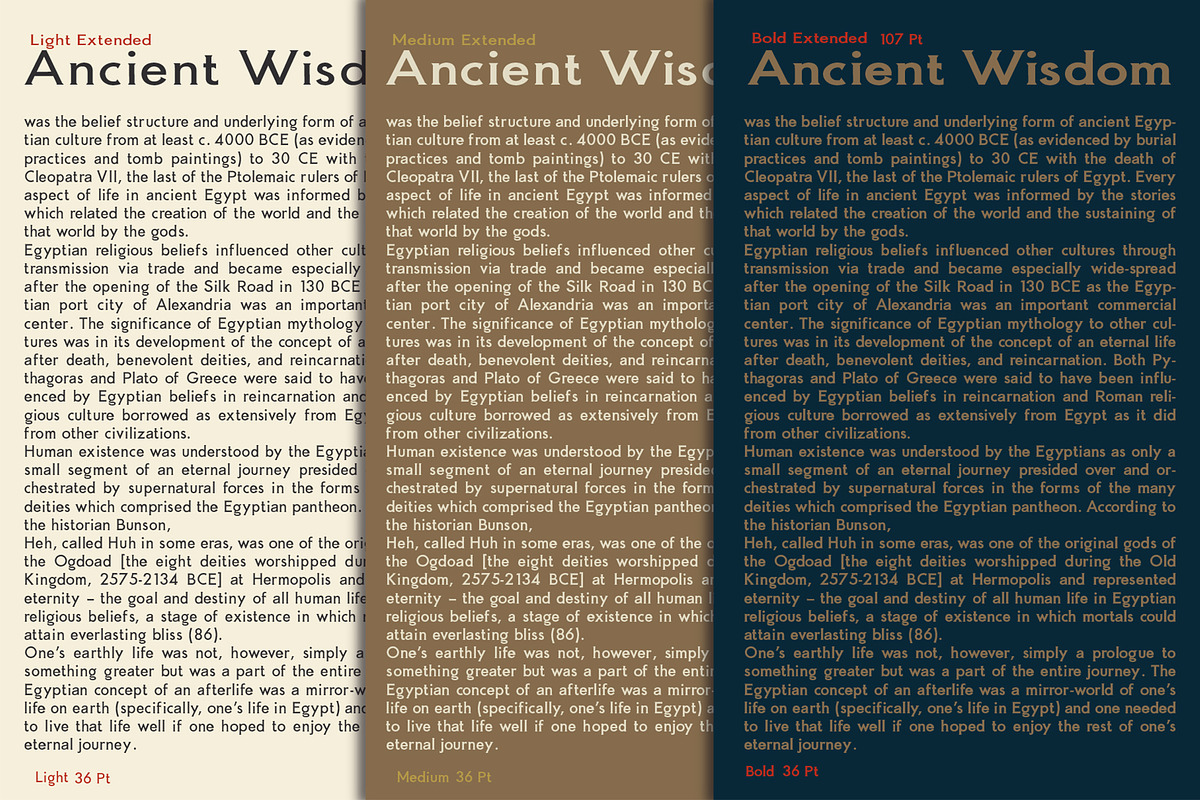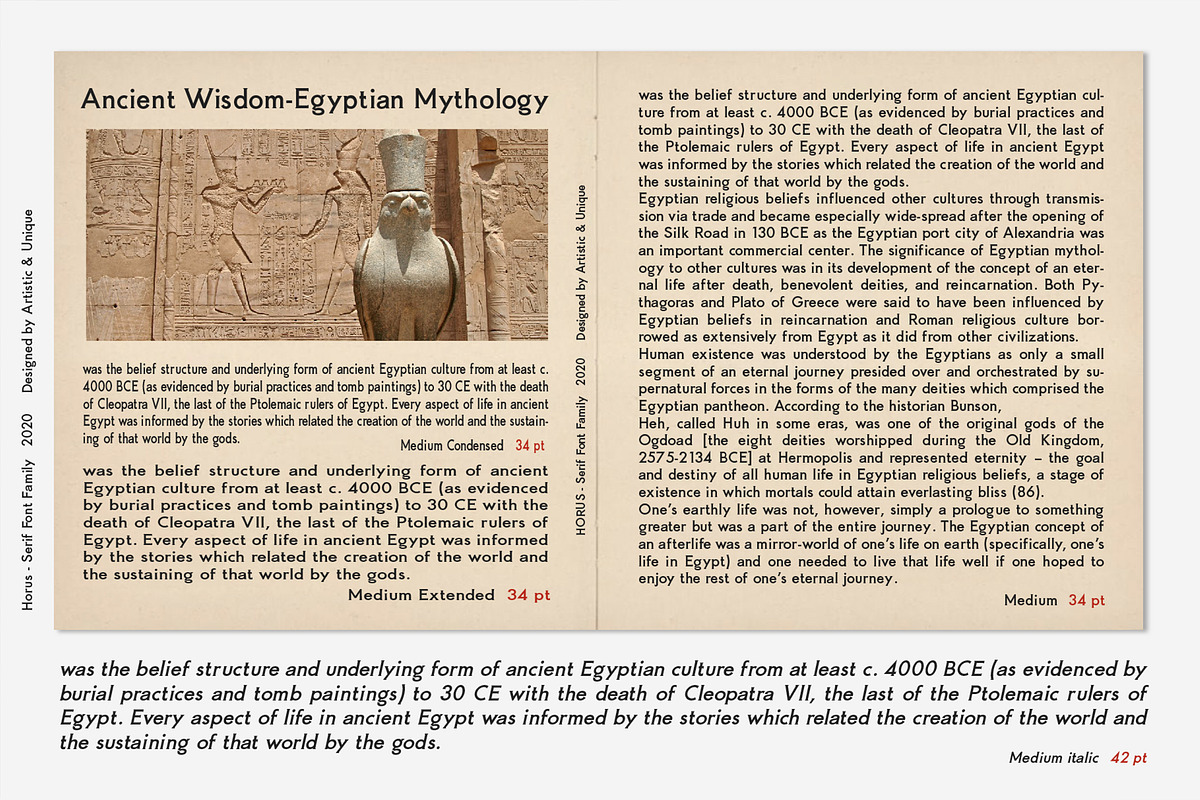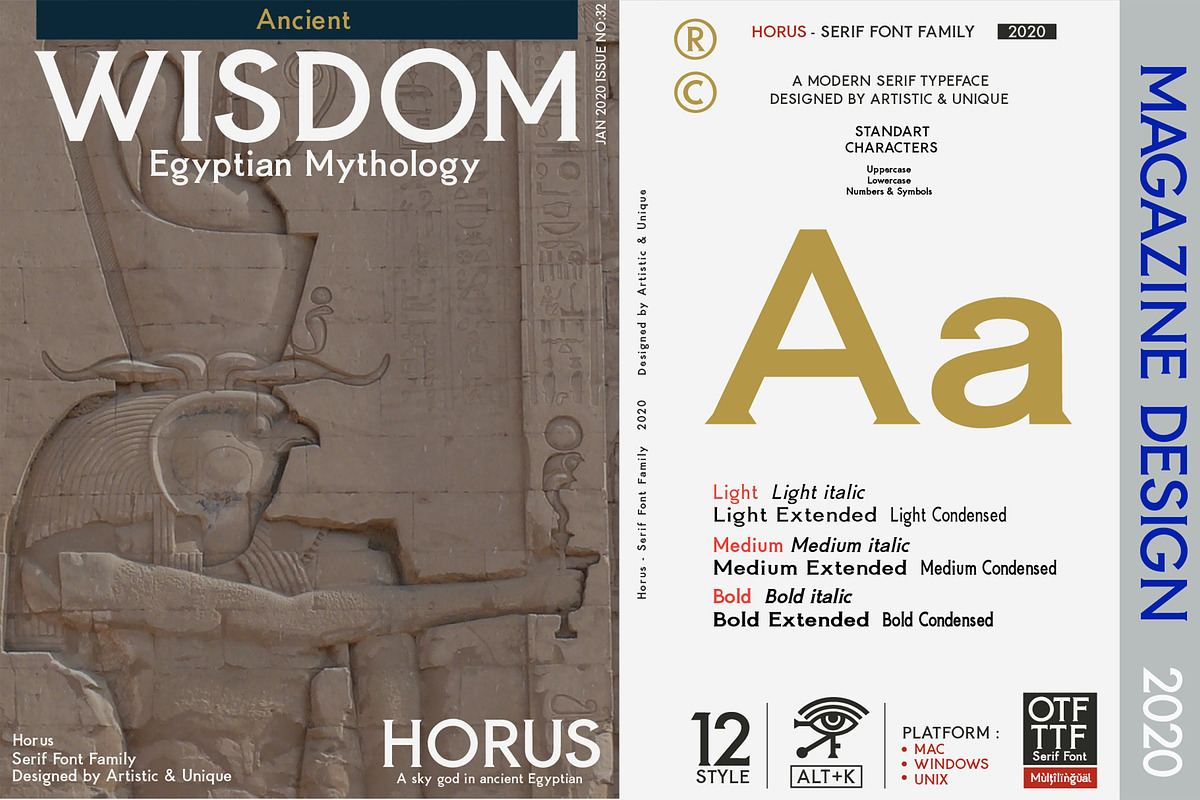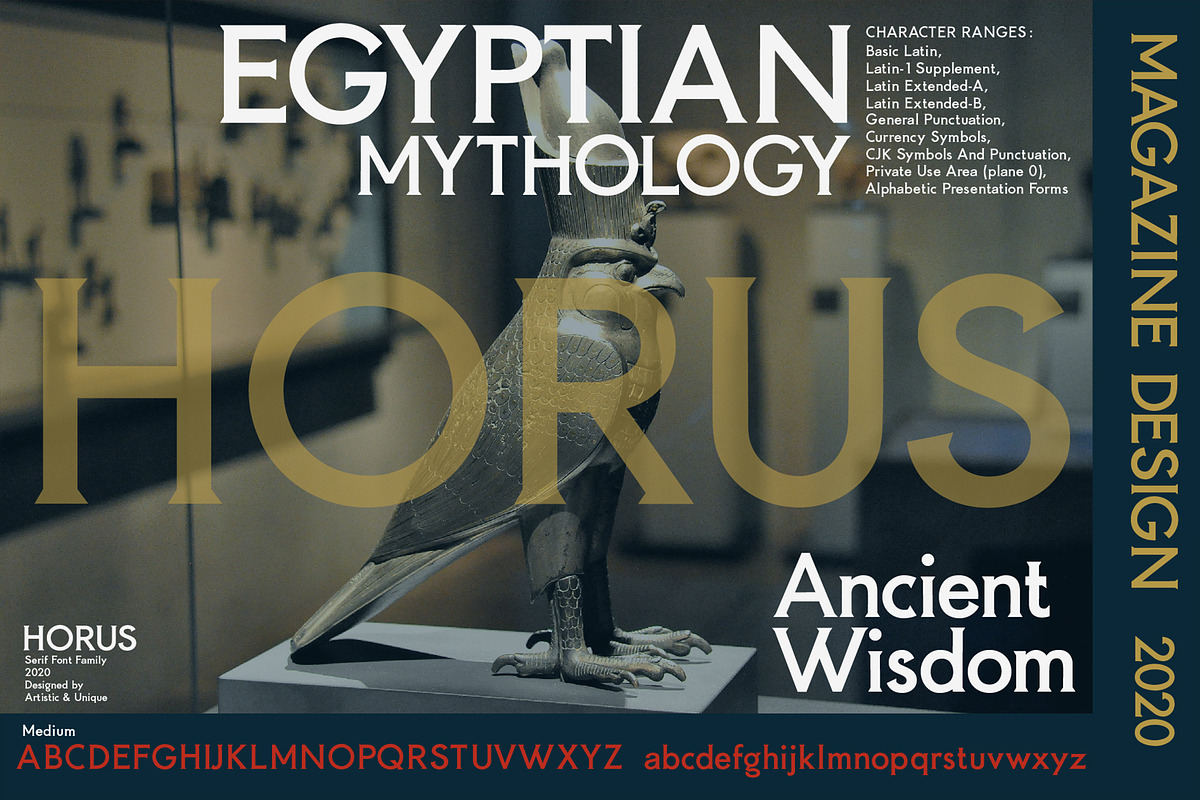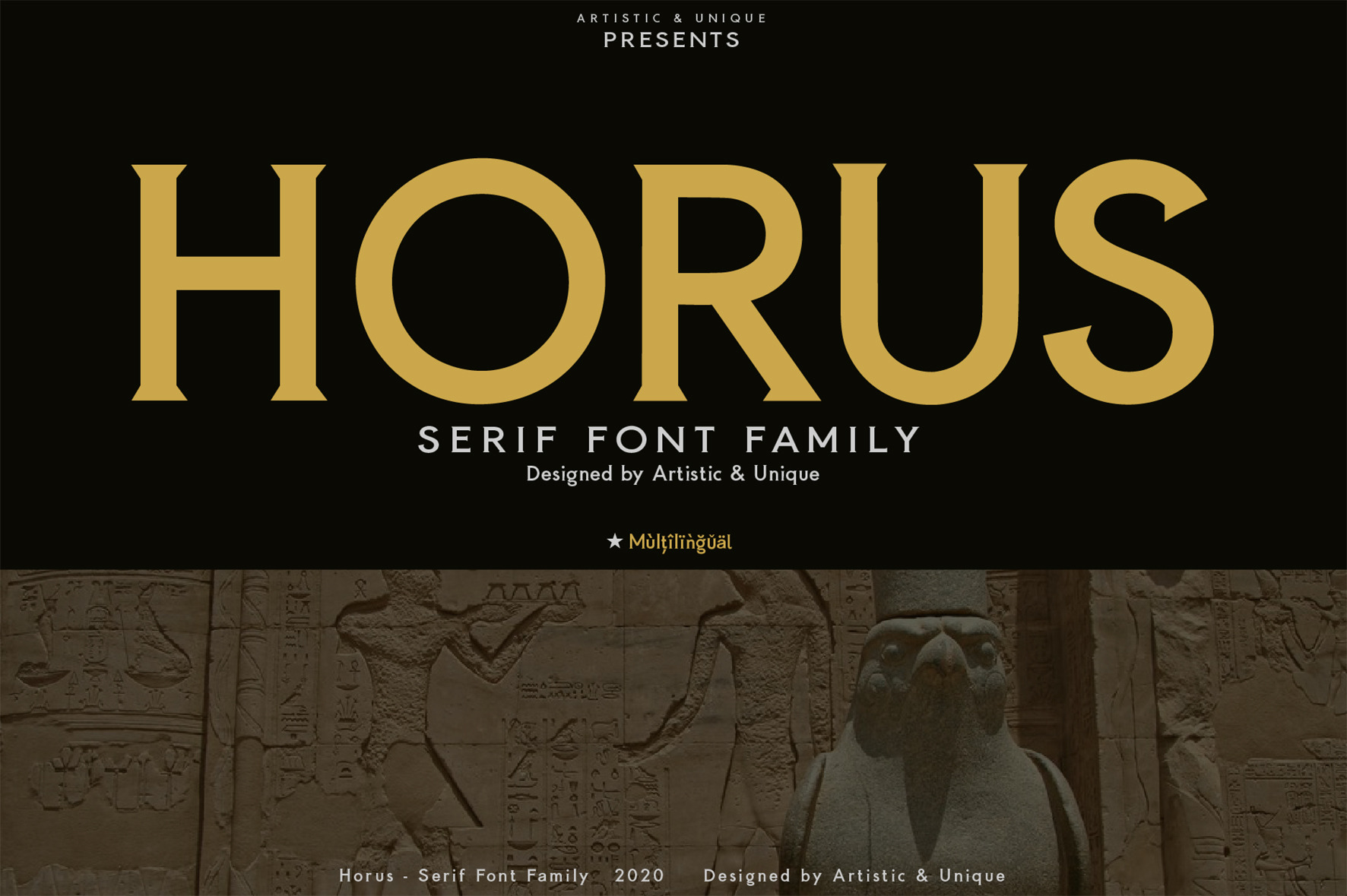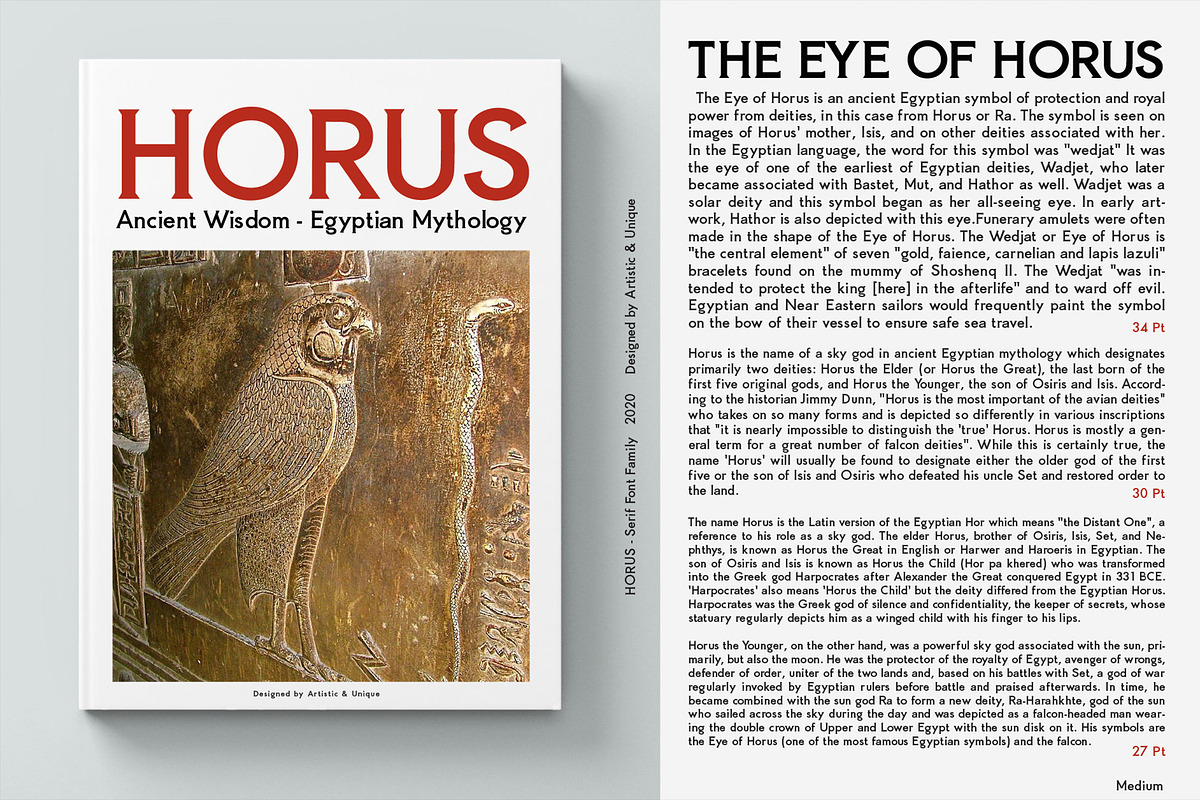
Horus - Serif Font Family
Horus - Serif Font Family - Multilingual - 12 Style (2020)
While Horus Font Family is inspired by Ancient Egypt and ancient stone carving inscriptions, the fact that this style was designed with today's modern serif font concept makes it a versatile family that can be used in many different design projects.
This font offers a wide variety of styles to help you discover the best mood for your projects, from body text to large titles, from classic styles to modern and bold styles.
It is very suitable for books and magazines, magazine covers, editorials, headlines, websites, logos, invitations, branding, advertising and more.
FONT SUBFAMILY :
Light
Light italic
Light Extended
Light Condensed
Medium
Medium italic
Medium Extended
Medium Condensed
Bold
Bold italic
Bold Extended
Bold Condensed
Uppercase typeface
Lowercase typeface
Symbols
With this font you can create your unique designs.